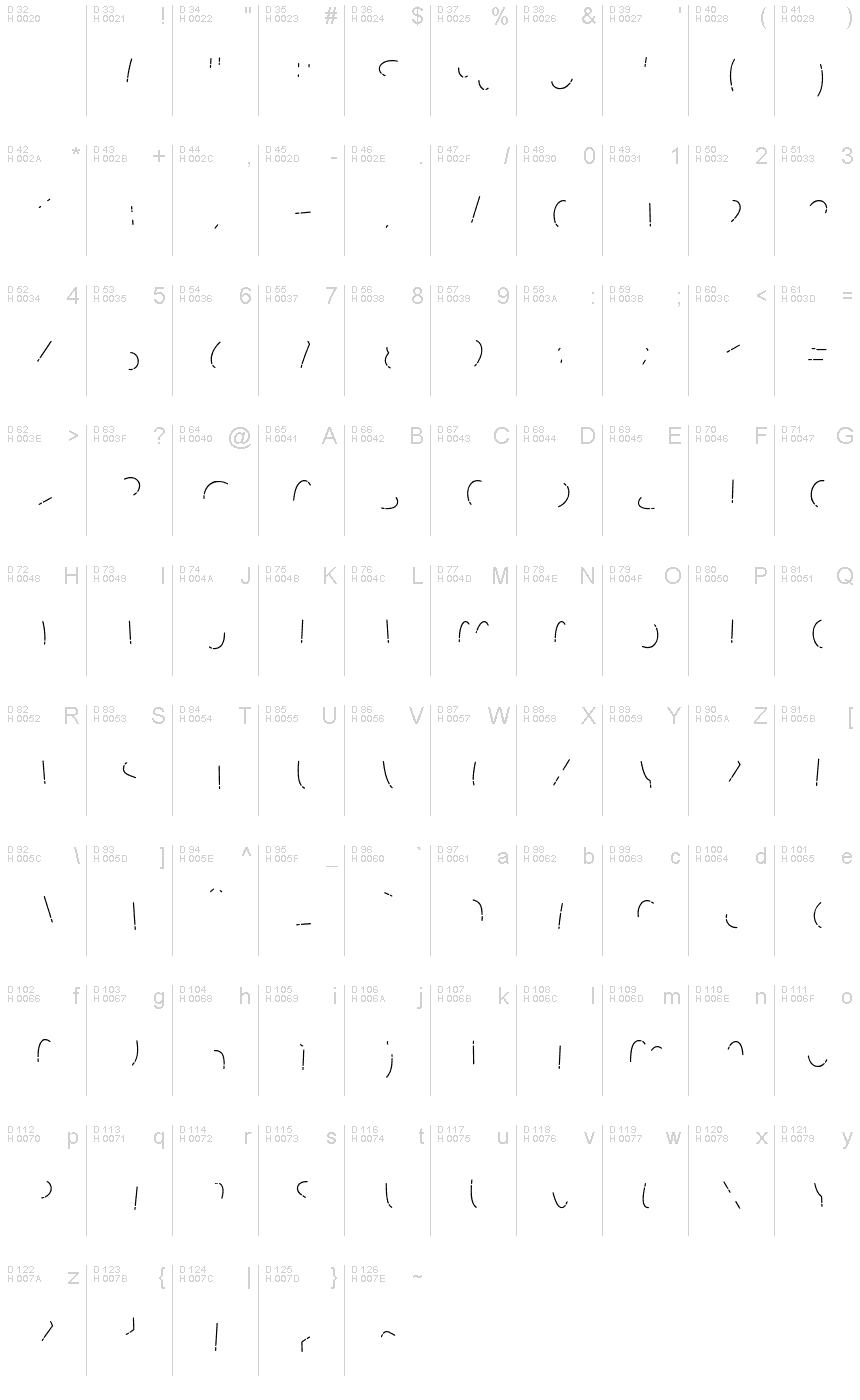
Rhuma Sinera Inline.
Rhuma Sinera Inline is a captivating display font designed by Mabhal Studio. With its playful and whimsical cartoon style, this font is perfect for a wide range of creative projects. Its unique inline design adds an extra element of charm and brings your text to life. Use Rhuma Sinera Inline for children's books, comic strips, animated videos, or any project that calls for a fun and imaginative touch. This typeface is sure to grab attention and make your words jump off the page. Let Rhuma Sinera Inline unleash your creativity and add a touch of magic to your designs.